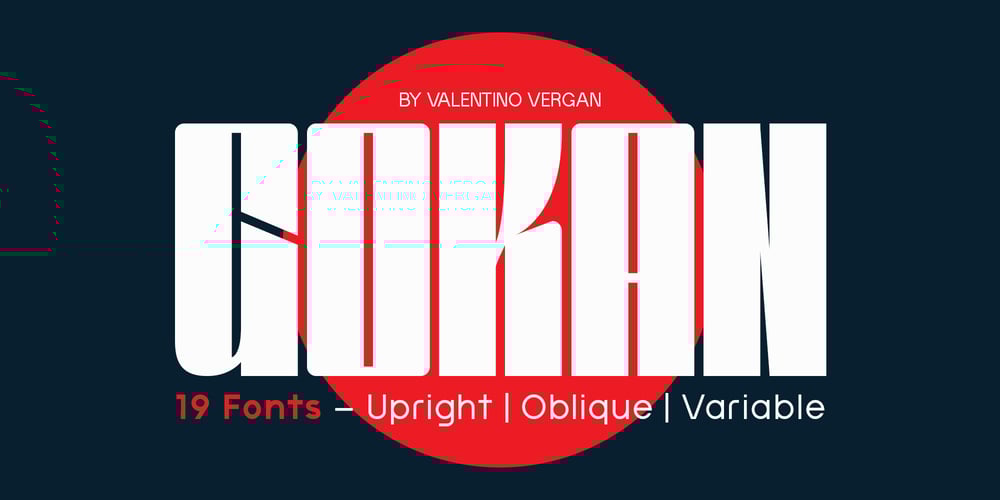
Gokan Font Family was designed by Martin Katibi and published by Valentino Vergan. Gokan contains 19 styles and family package options. Gokan is a bold variable sans serif, it was designed with tall stylish letters that have a neutral Condensed look. The idea behind Gokan was to create an all-purpose headline font that would look great on posters, graphics and logos. Gokan is an ideal font for designs and agencies who are looking to create beautiful graphic designs. Gokan comes with 9 different weights, each weight has an oblique versions. Gokan is also equipped with a set of powerful opentype features. With its great multilingual support, Gokan can produce a large number of different languages.